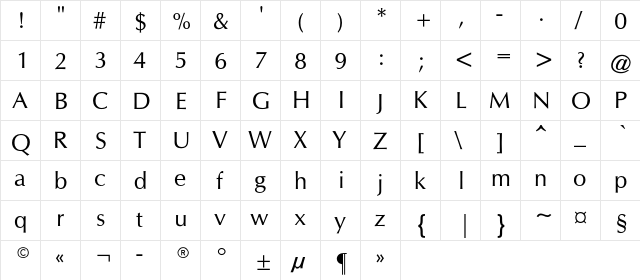
CG-OmegaC Regular Font Preview
CG-OmegaC Regular
Design Context for CG-OmegaC Typeface
CG-OmegaC takes a measured approach to typography — its balanced proportions and neutral character make it a reliable workhorse for both digital and print work.